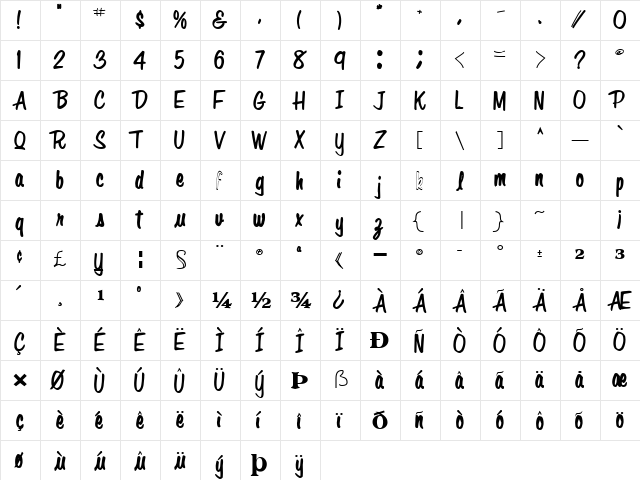
ShaShaText36 Bold
Design Context for ShaShaText36 Typeface
ShaShaText36 is a composed and adaptable typeface that performs quietly and consistently across a wide range of design contexts. The heavy weight commands attention and anchors typographic hierarchies.